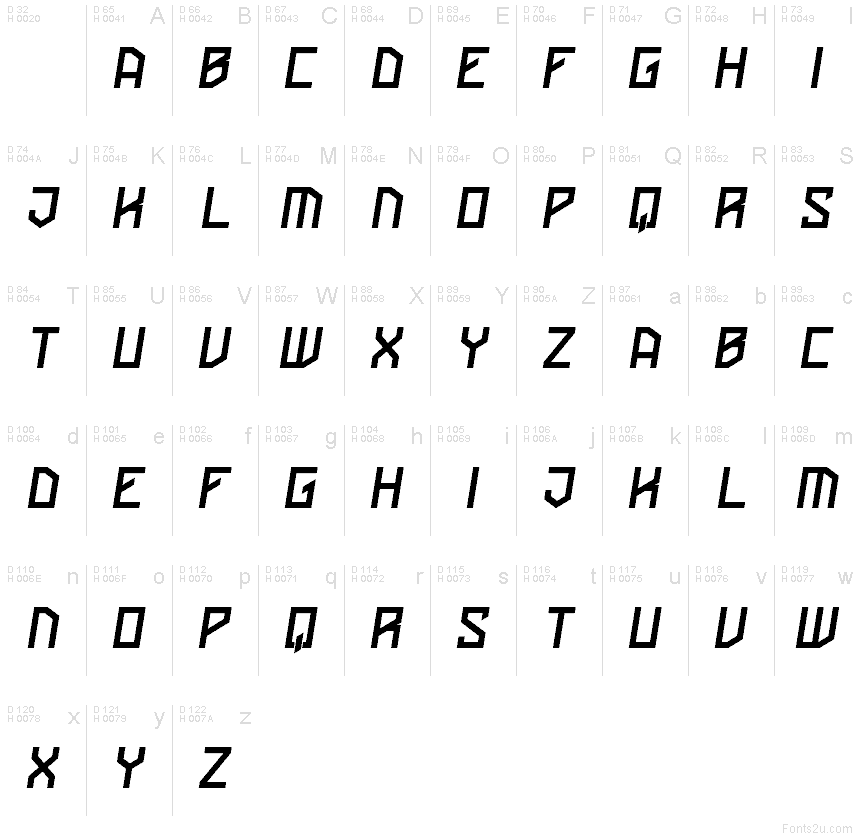
Agressor Extravagant Regular
Agressor Extravagant font by Vladimir Nikolic is a free techno display typeface that looks like it’s been cut from metal and set in motion. Part of the Agressor family, its tall, narrow letters lean forward with sharp, sliced angles and hard diagonal strokes, giving every word a sense of speed and impact. The chunky forms feel bold and industrial, while the tight rhythm between letters creates a continuous, energetic stripe of text that grabs attention instantly.
Using Agressor Extravagant, you can push sci‑fi posters, esports logos, racing graphics, gaming overlays, and YouTube thumbnails into full-throttle territory. This free font shines on event flyers and bold wordmarks where you want a futuristic edge that still reads at a glance. For balance, pair it with a clean geometric sans in smaller text, and keep Agressor Extravagant large so its slanted, aggressive silhouette really hits.